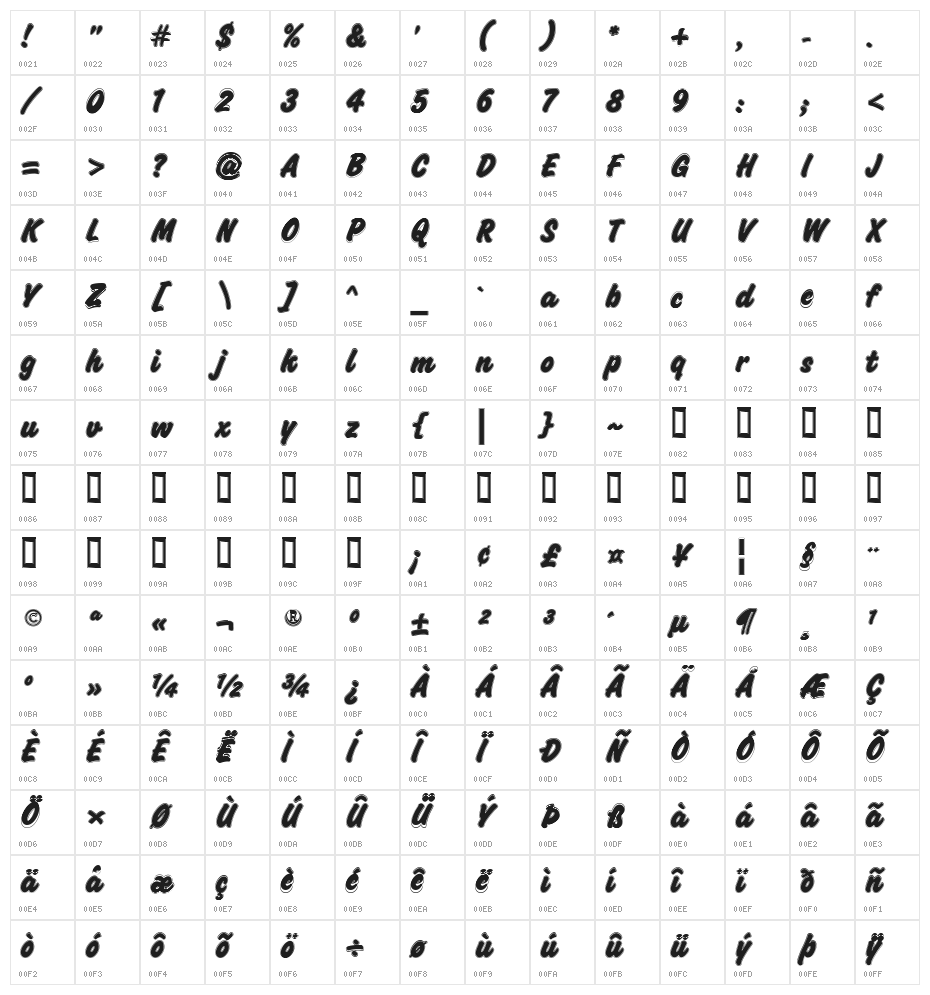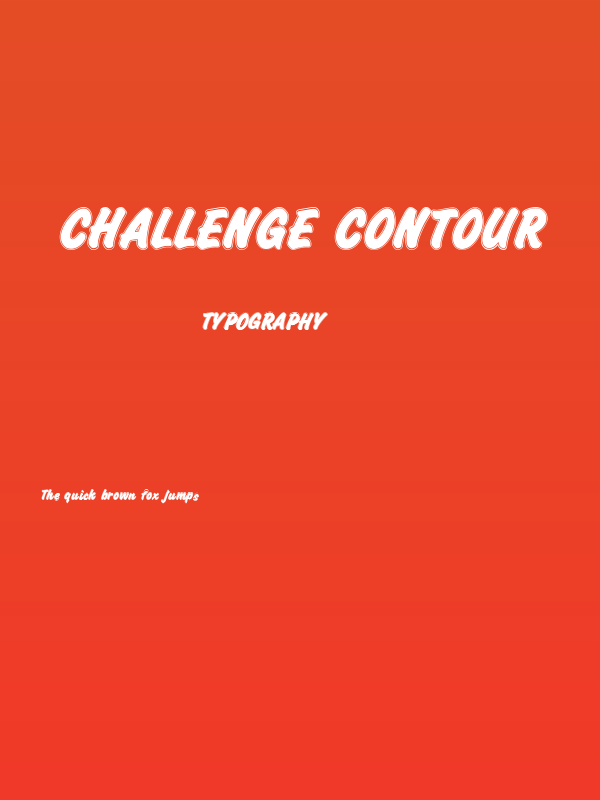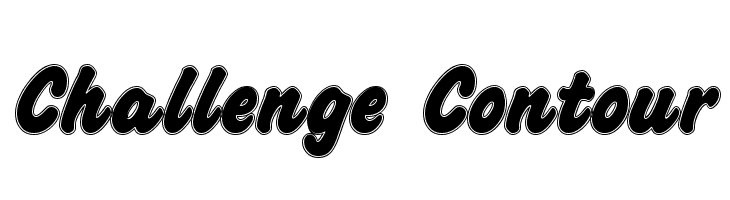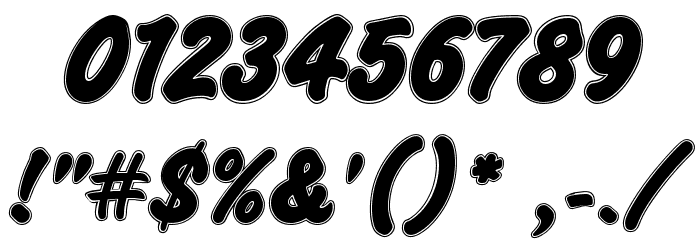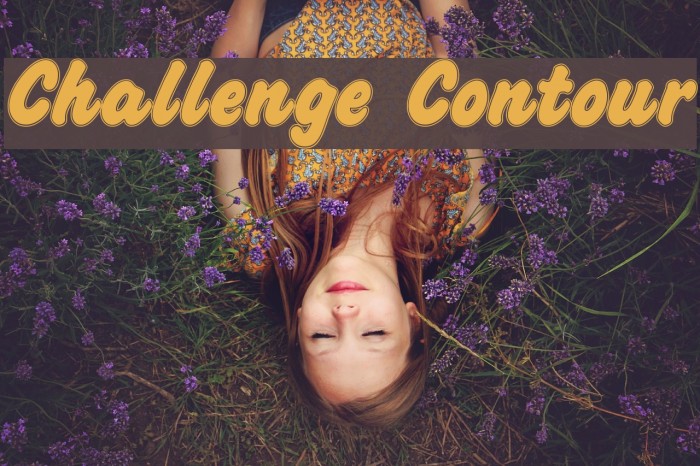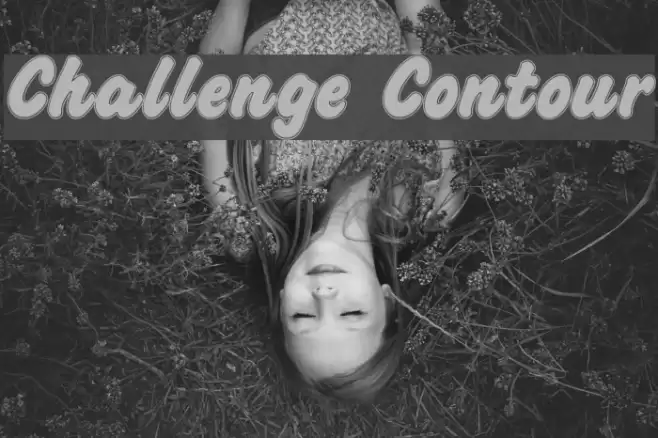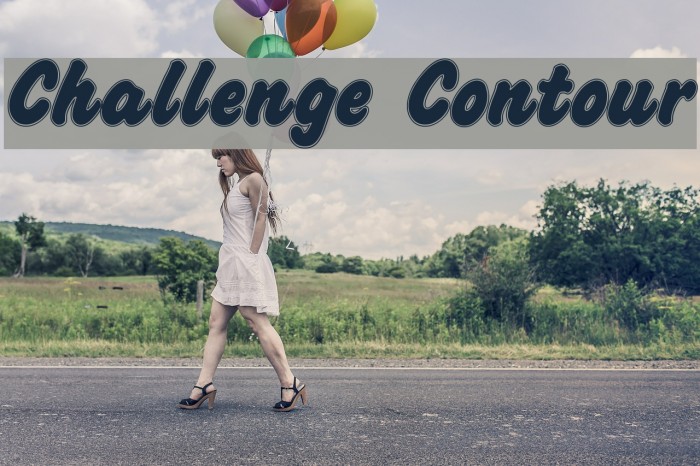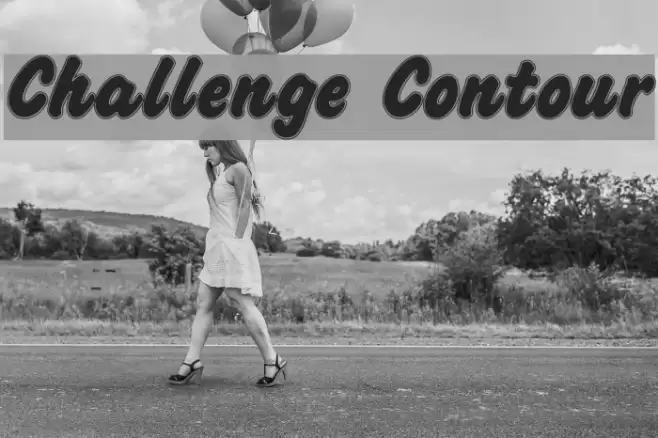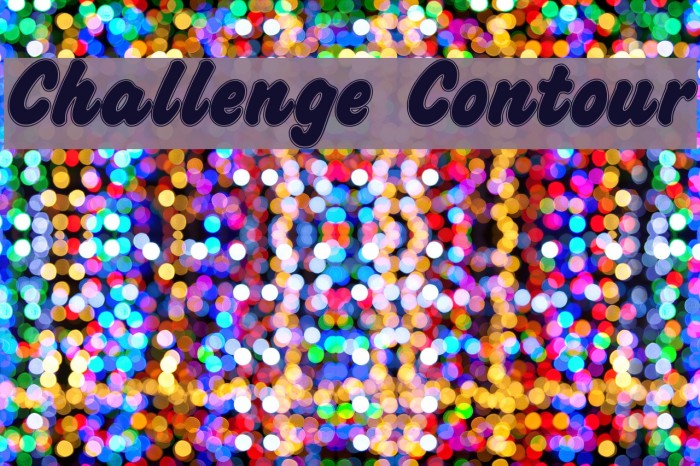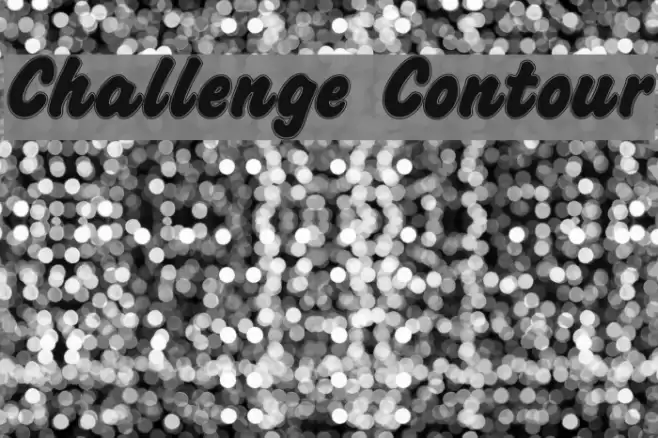
Challenge Contour Font
Challenge Contour Description
This font features a bold, dynamic style with a strong presence. Each character is outlined, giving it a distinctive contour that enhances its visual impact. The letters are rounded and smooth, with a slight slant that adds a sense of motion and energy. The uppercase and lowercase letters maintain consistent proportions, ensuring readability while adding a playful touch. The numerals and special characters are equally bold, making them stand out in any design. This font is perfect for projects that require a lively and engaging typeface.
| Proposed Projects | Ideal for posters, logos, headlines, and any design that needs a bold and energetic typeface. |